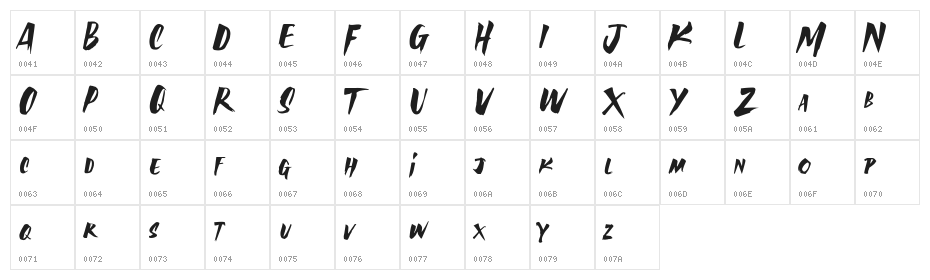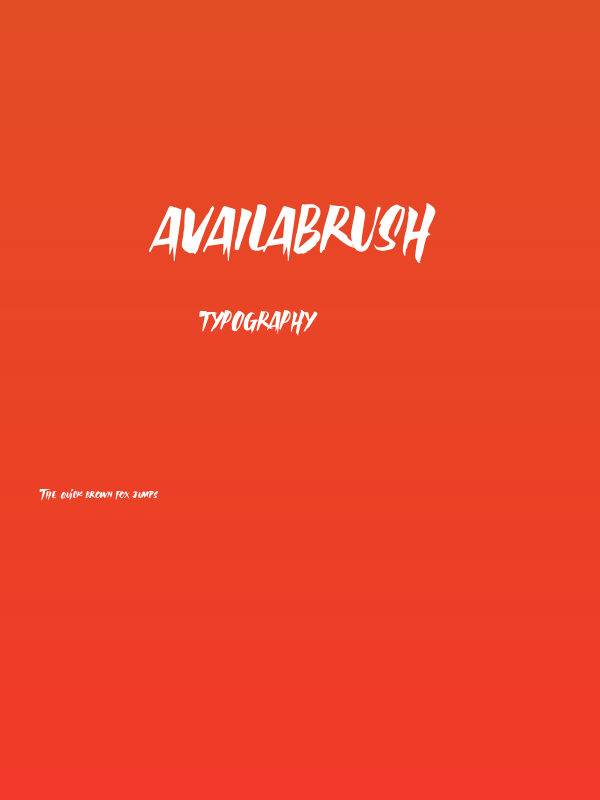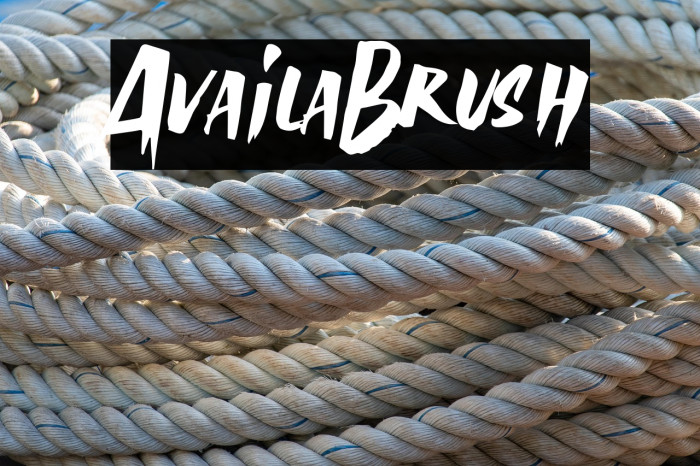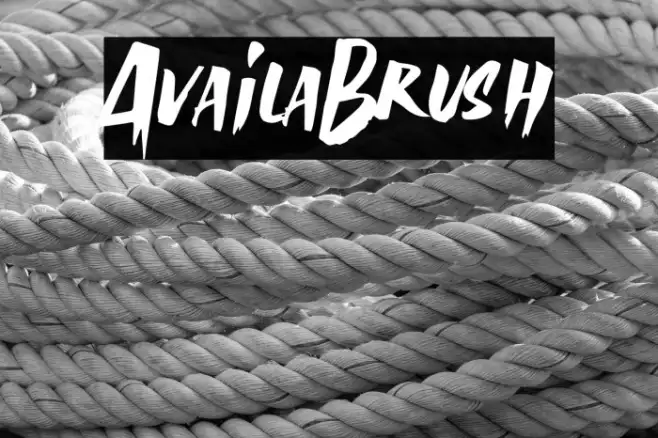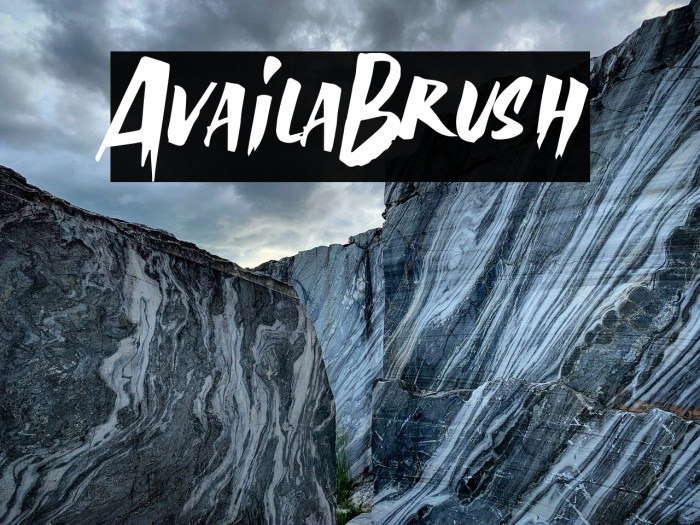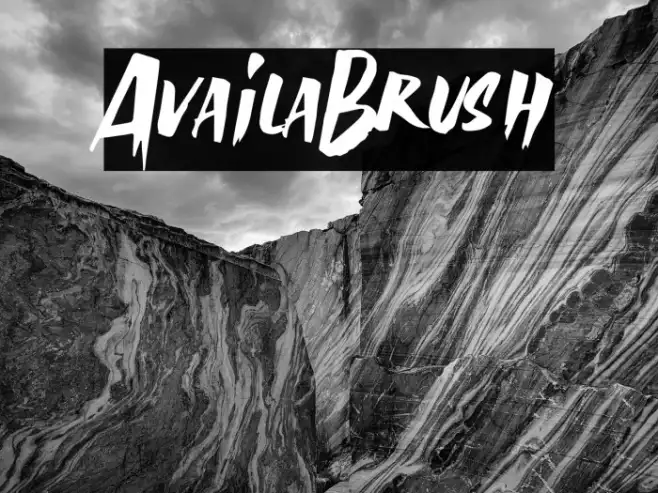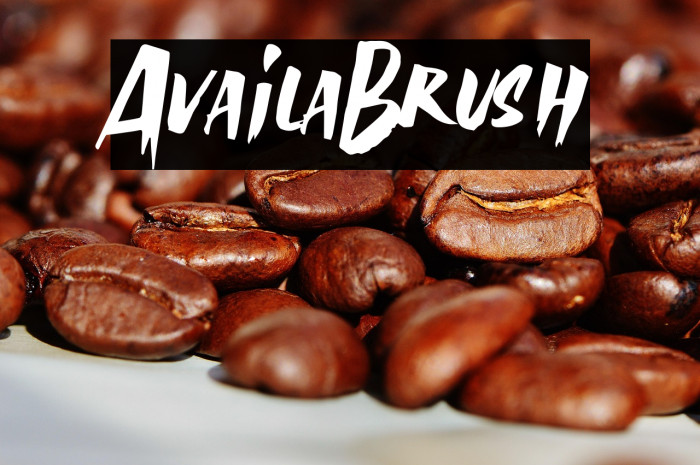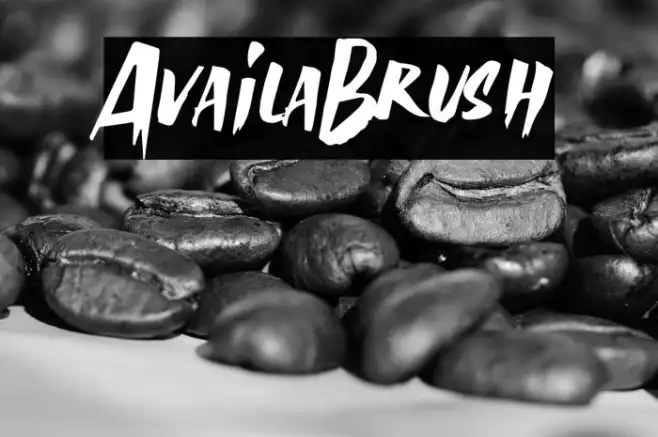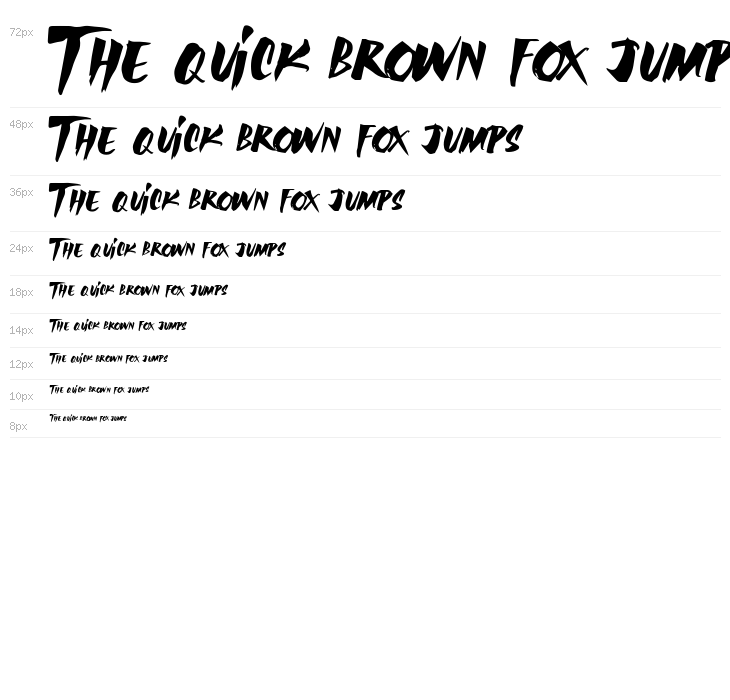
AvailaBrush Font
AvailaBrush Description
This font exudes a bold and dynamic energy, characterized by its brush-like strokes that give it a hand-painted appearance. The letters are crafted with sharp, angular edges and varying stroke widths, creating a sense of movement and intensity. The uppercase and lowercase letters maintain a consistent style, with exaggerated curves and pointed terminals. The overall design is expressive and artistic, making it suitable for projects that require a strong visual impact. The font's unique style is reminiscent of street art or graffiti, adding a modern and edgy feel to any design.
| Overall Style | Modern, Artistic |
| Proposed Projects | Ideal for posters, album covers, branding, and any design needing a bold, artistic touch. |